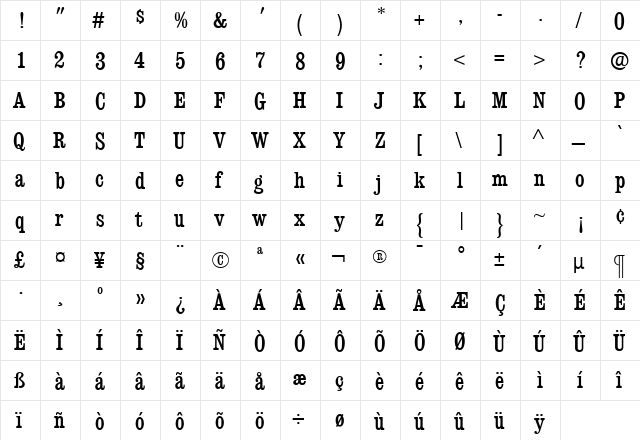
ConsortMediumCondensed Regular
Design Context for ConsortMediumCondensed Typeface
ConsortMediumCondensed is a composed and adaptable typeface that performs quietly and consistently across a wide range of design contexts. The condensed width makes it efficient for tight spaces without sacrificing legibility.